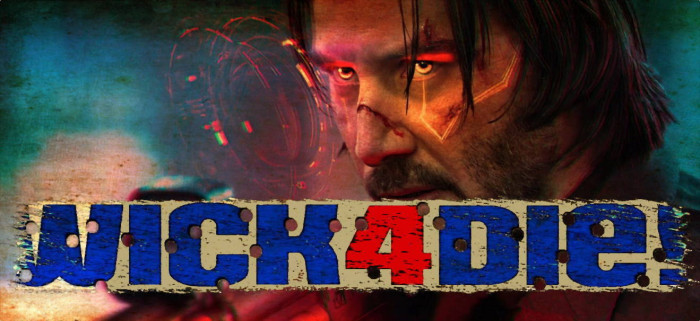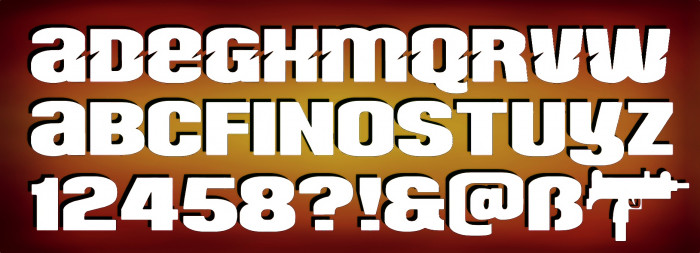
zurvivor eYe/FS
by elmoyenique
Two-in-one font, uppercase scratched and lowercase clean. Looking forward to the fourth John Wick movie next May. I've added some dingbats for your fun. Enjoy, please.
Congratulations! FontStruct Staff have deemed your FontStruction worthy of special mention. “zurvivor eYe/FS” is now a Top Pick.
Wow! very nice and clean font. And these small scratches create an interesting lightning effect when two letters are adjacent, and reminded me that I also wanted to make a font with scratches.
And right now, there is a sudden image of this movie's logo on the internet, which turns out to be subtitled Hagakure, did you know?
@Dmitriy Sychiov: Yes, but Lionsgate has yet to confirm the title "John Wick: Chapter 4 - Hagakure" as official. It's a bit risky to give it that credibility. If this leak turns out to be true, the studio will likely make the announcement. And many thanks for the kind words about the font.
Love the scratched/clean combo & the dingbats are a clever inclusion
The same as Zilverbuller, but this time, a tungsten bullet?
@BWM: Yes, it's a little pun with the marked W, meaning Wolfram/tungsten & also Wick. Thanks for comment that.